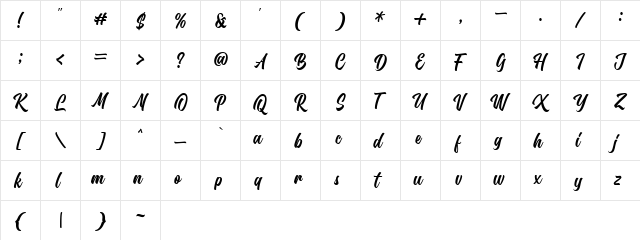
Stonekids Regular
| Foundry | Blankids Studio (Bangkit Tri Setiadi) |
| Designer | Bangkit Tri Setiadi |
Design Context for Stonekids Typeface
Stonekids has an approachable, lighthearted character — its loose, expressive forms are well-suited to children's content, casual branding, and fun-first design.
Font Pairing: Pairs well with a rounded or humanist sans for body copy, maintaining the friendly tone without relying on Stonekids to carry extended reading.
Pro Tip: Use Stonekids at larger display sizes where its expressive character can land. Pair with a clean, simple sans for body copy to maintain readability.